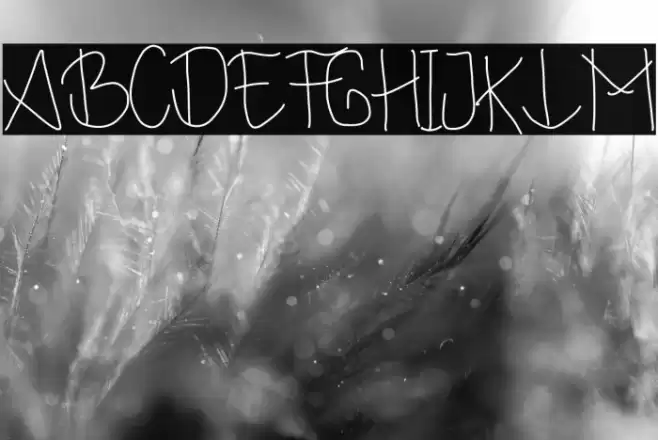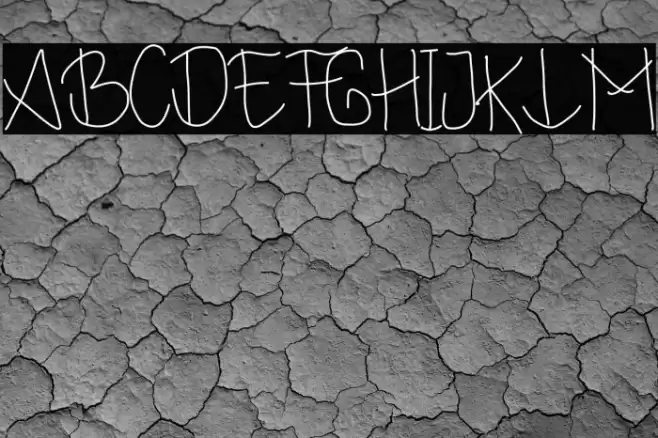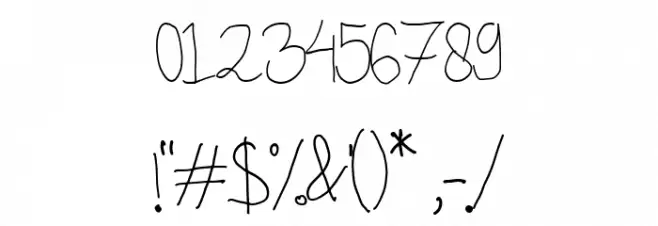
The Cattalina Font
The Cattalina Description
This font features a whimsical and playful handwritten style, characterized by its thin and elongated letterforms. The strokes are consistent in width, giving it a uniform appearance. The uppercase letters are tall and slightly curved, while the lowercase letters maintain a similar height, creating a harmonious flow. The numbers and special characters follow the same playful aesthetic, making the font suitable for creative and informal applications. Its unique style makes it stand out, adding a personal touch to any design.
A whimsical handwritten font with thin, elongated letterforms from Uncategorized fonts.
- Proposed Projects: Ideal for greeting cards, children's books, playful branding, and creative invitations.
- Overall Style: Playful
The Cattalina UPPERCASE
The Cattalina LOWERCASE
The Cattalina OTHER CHARS